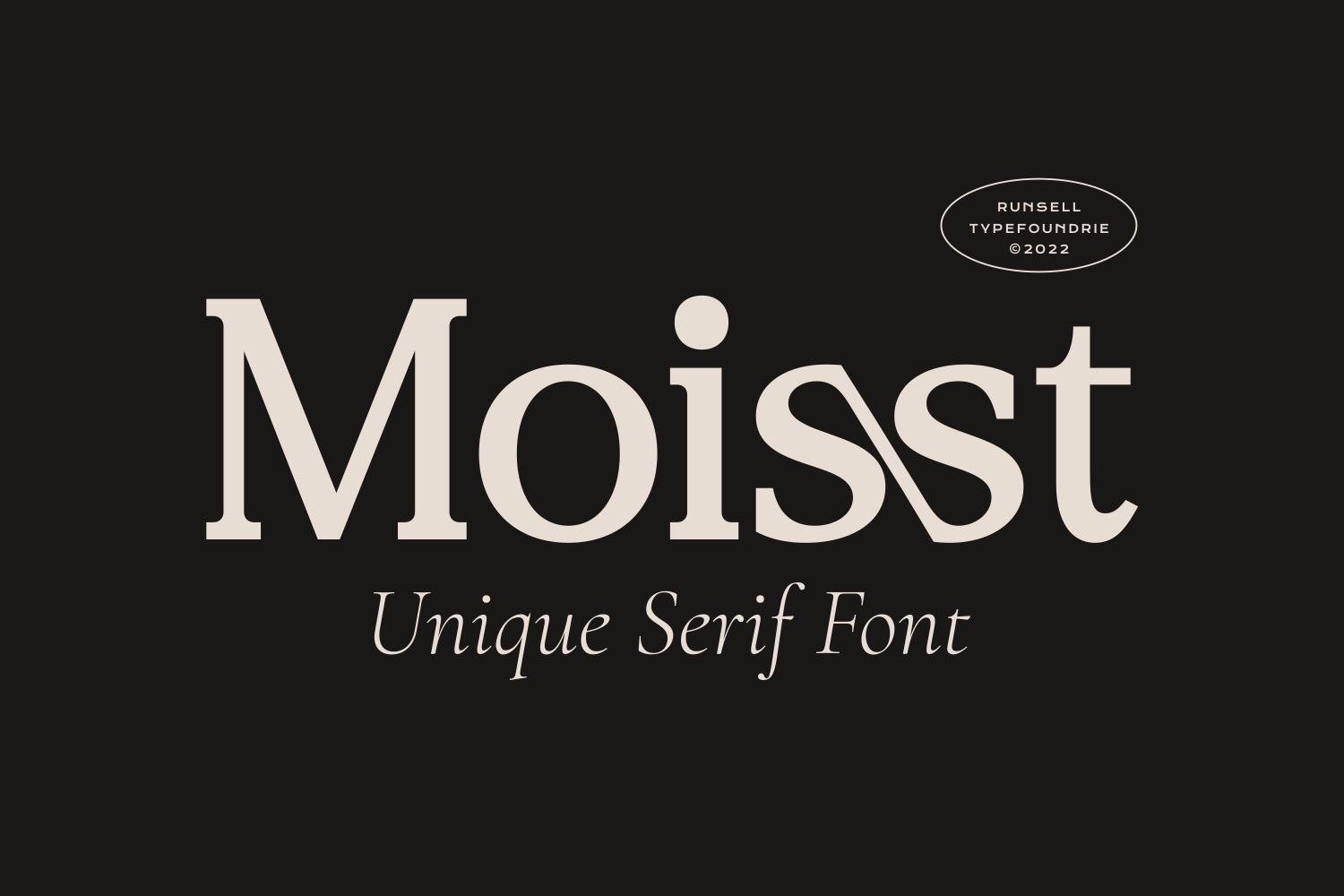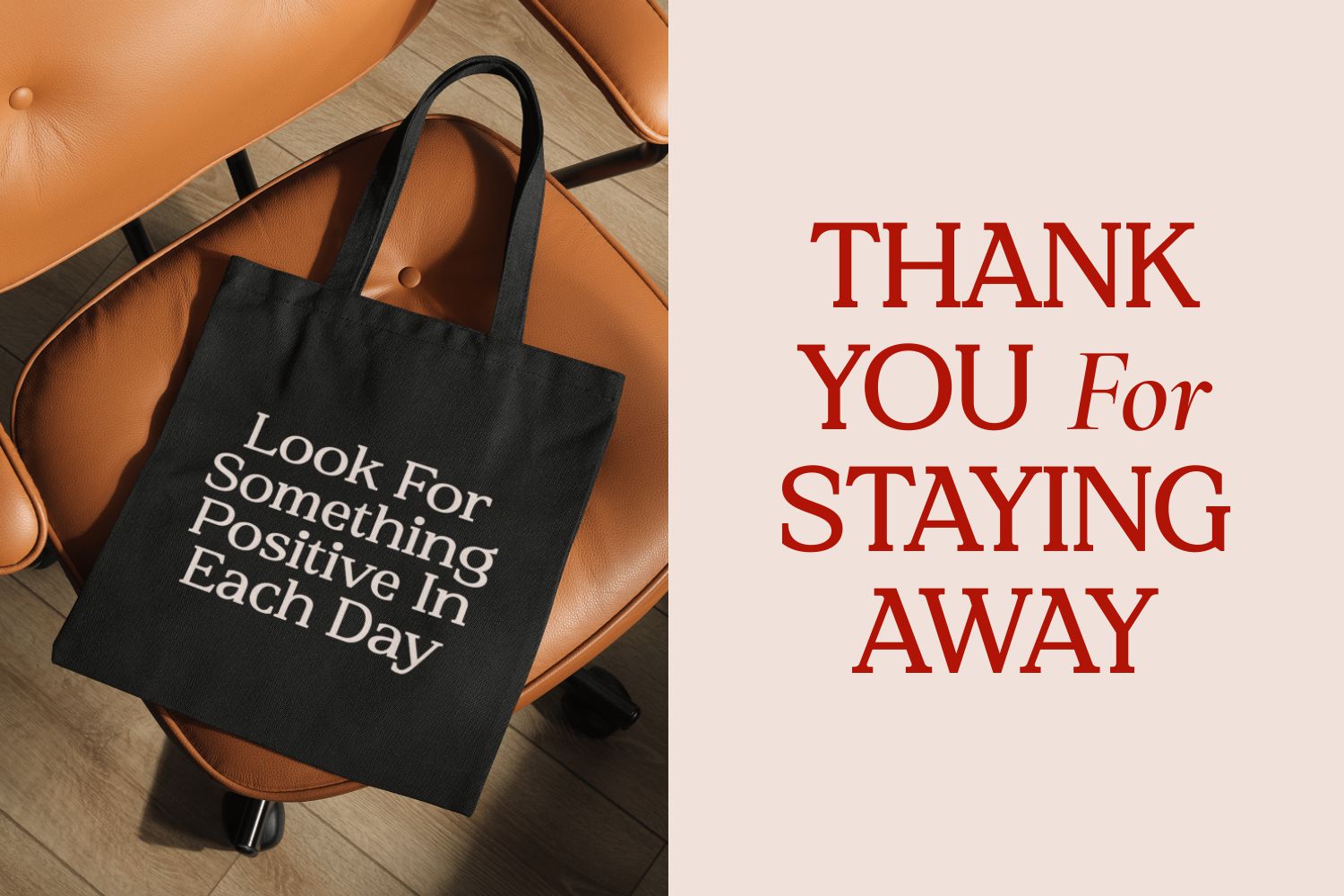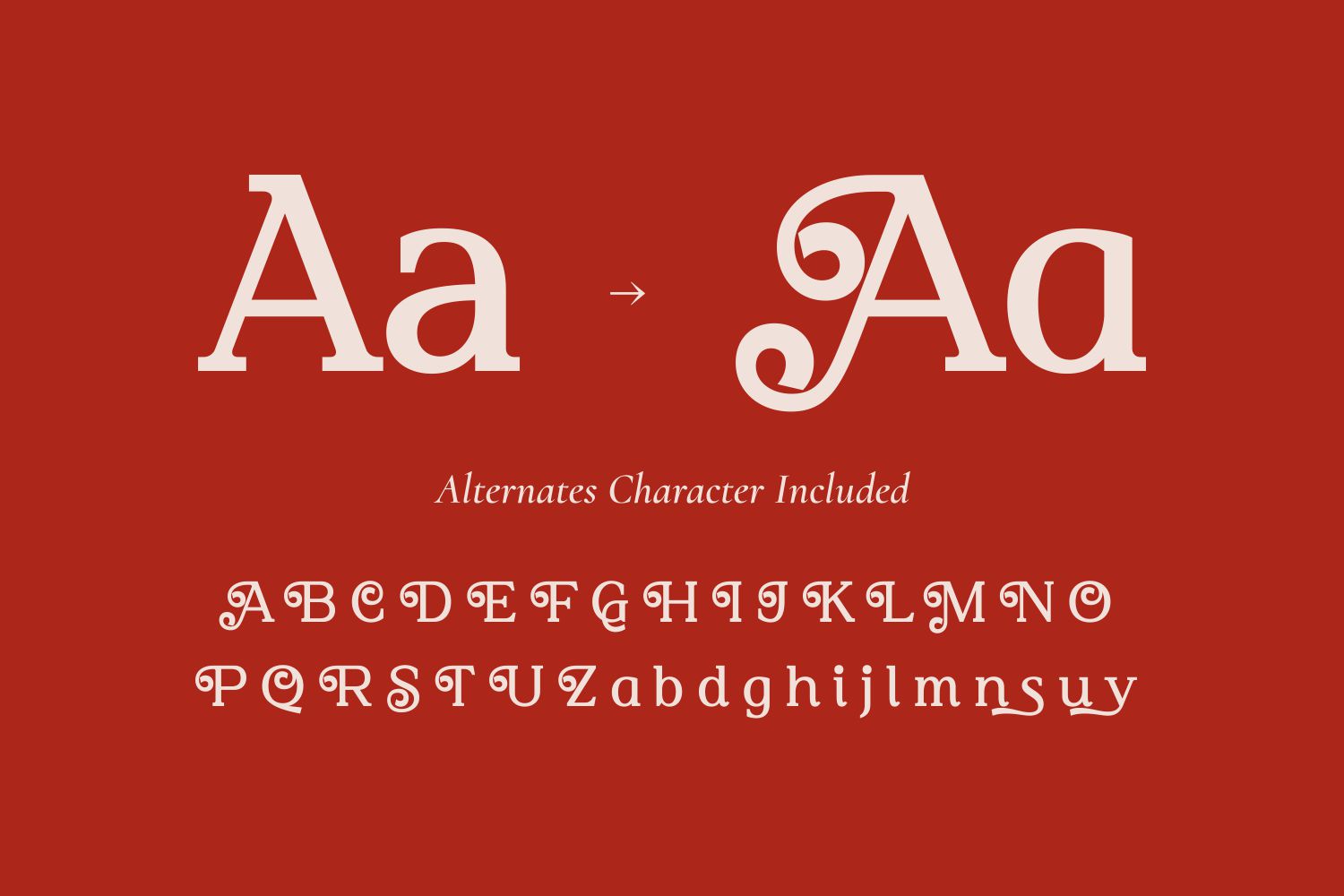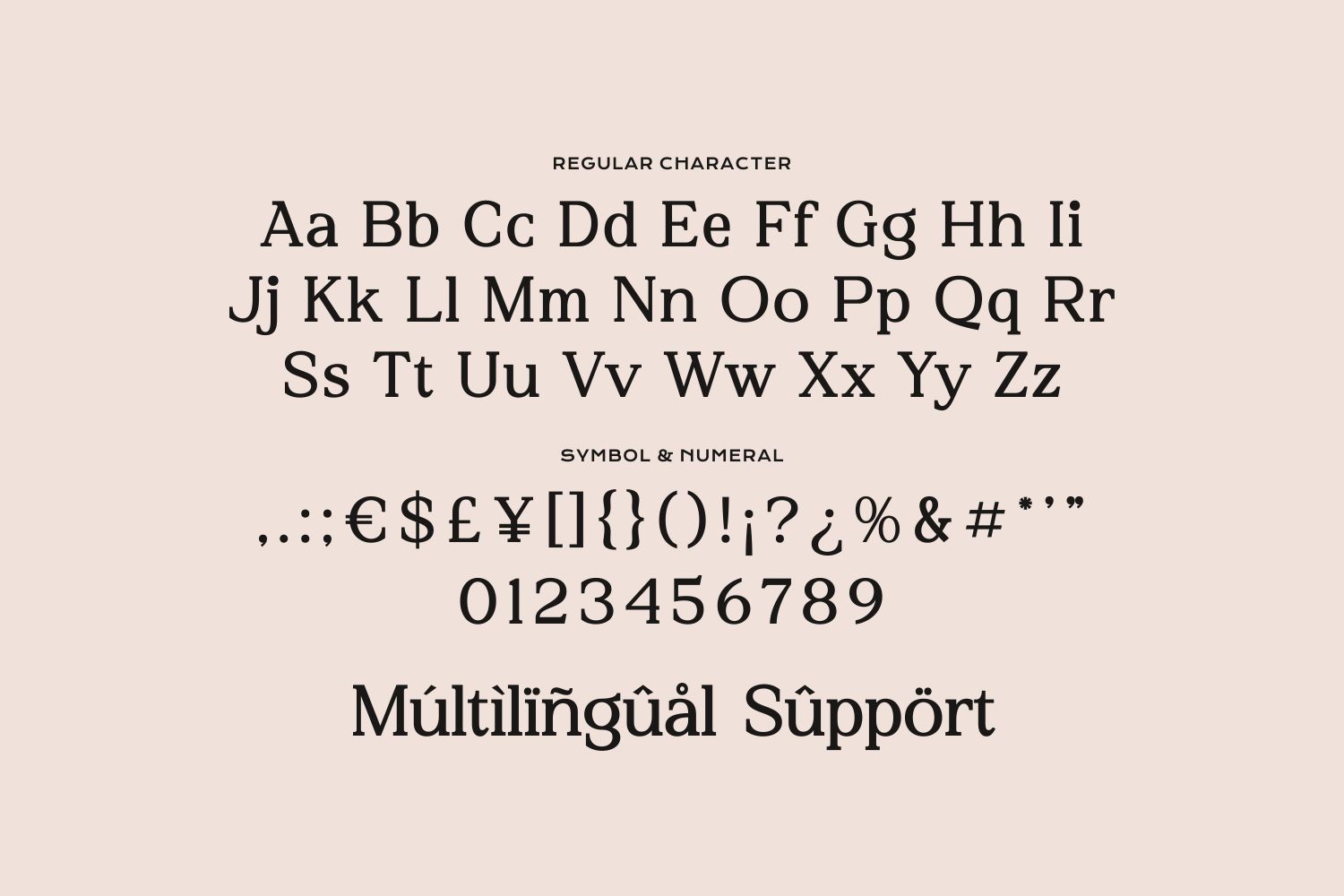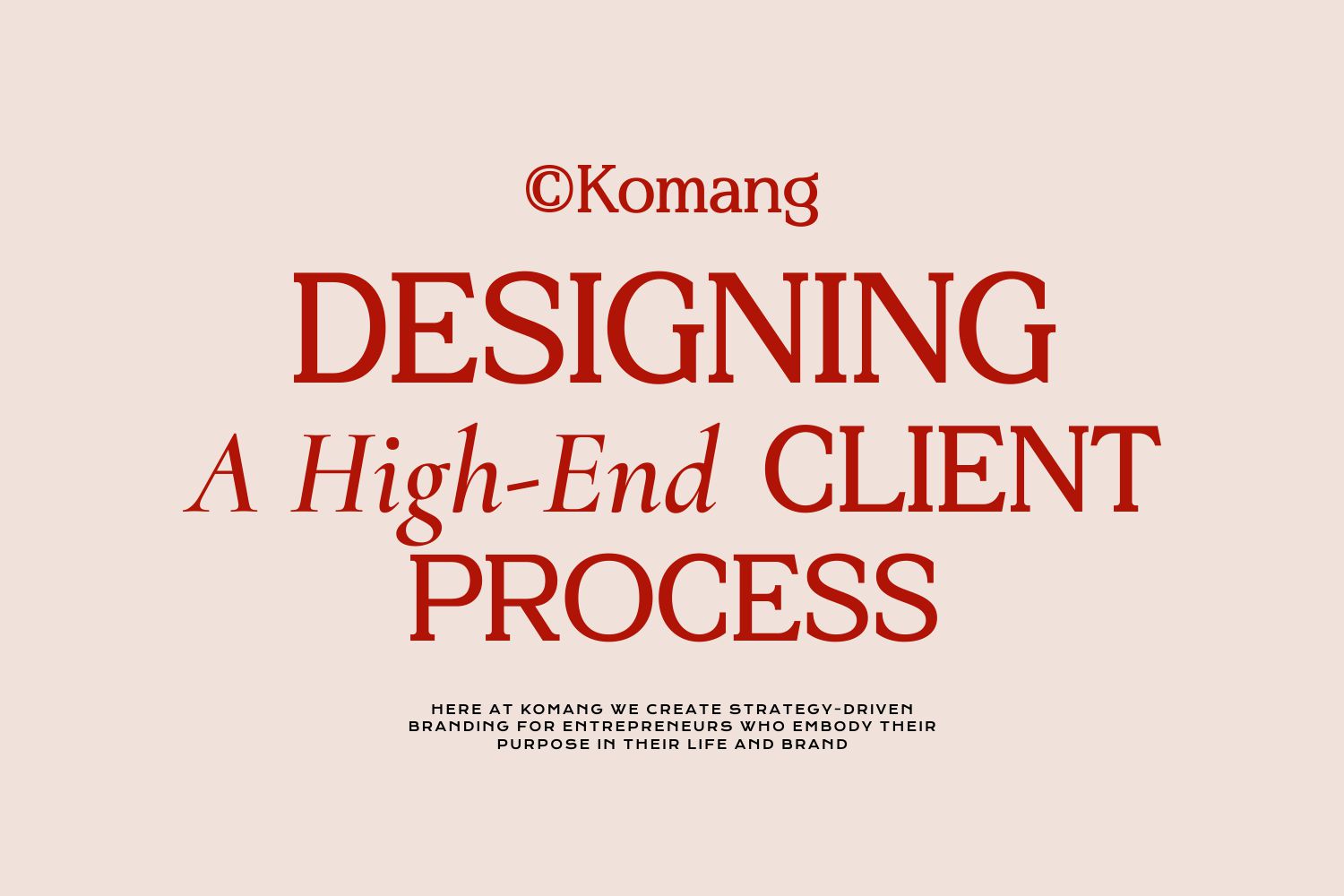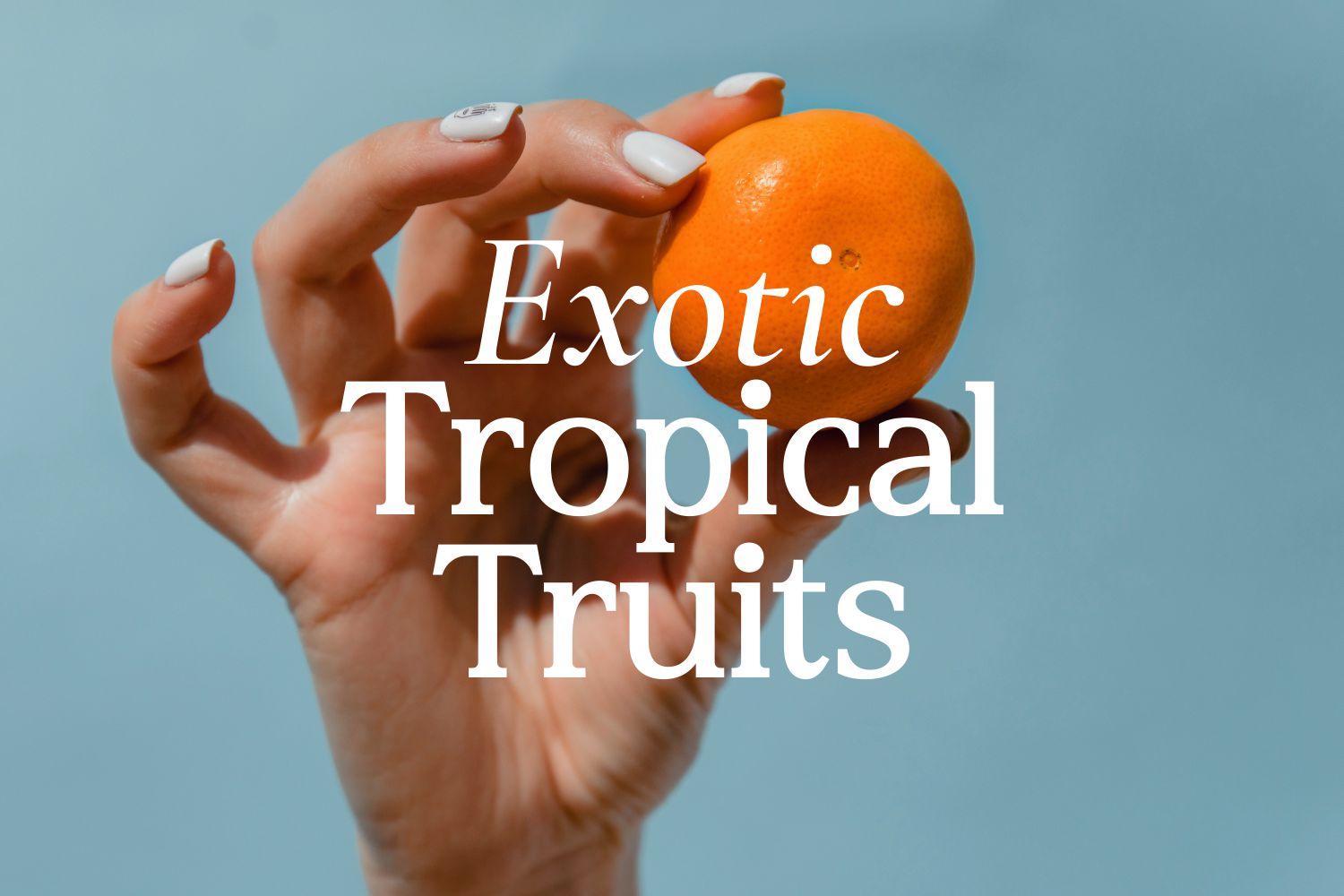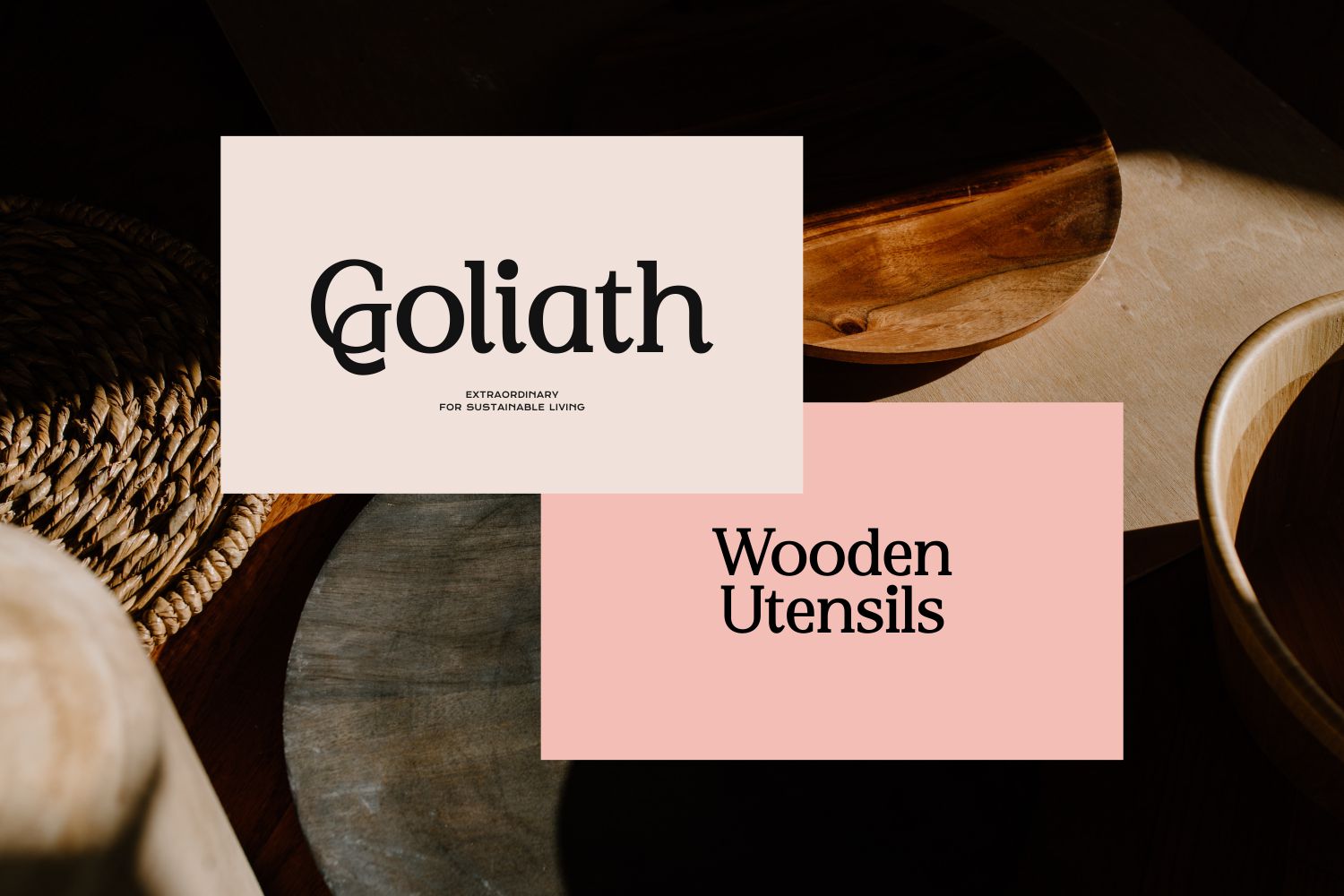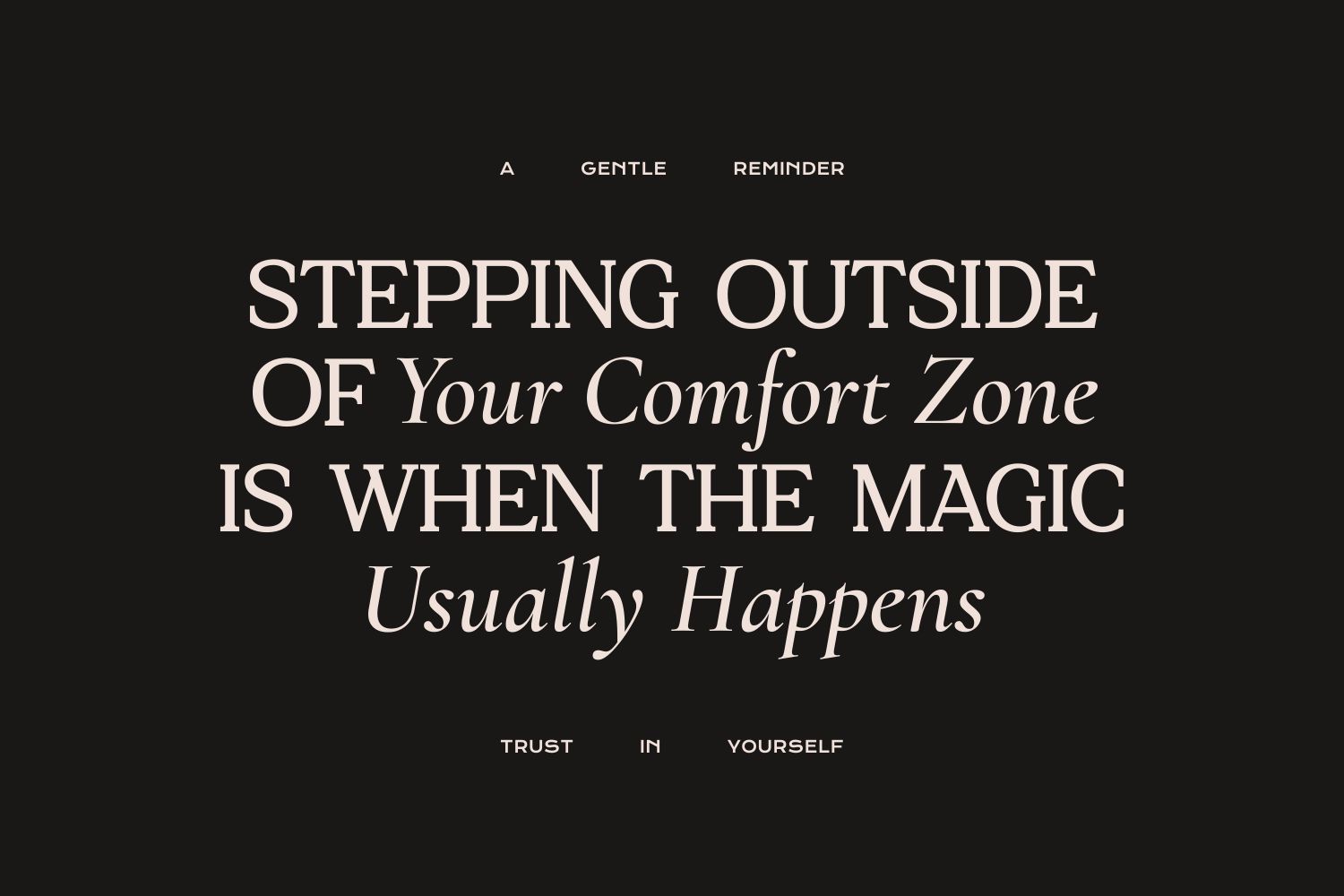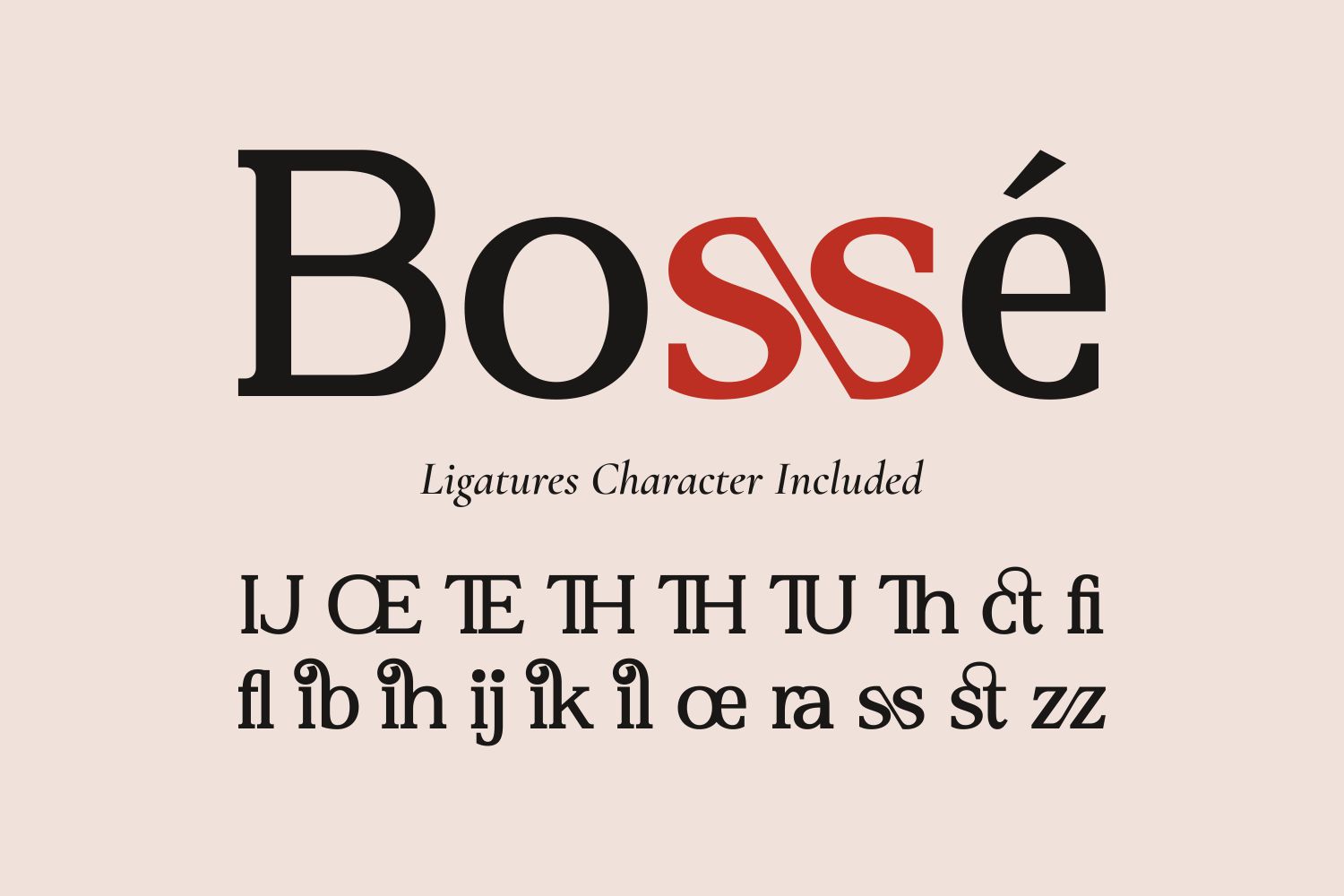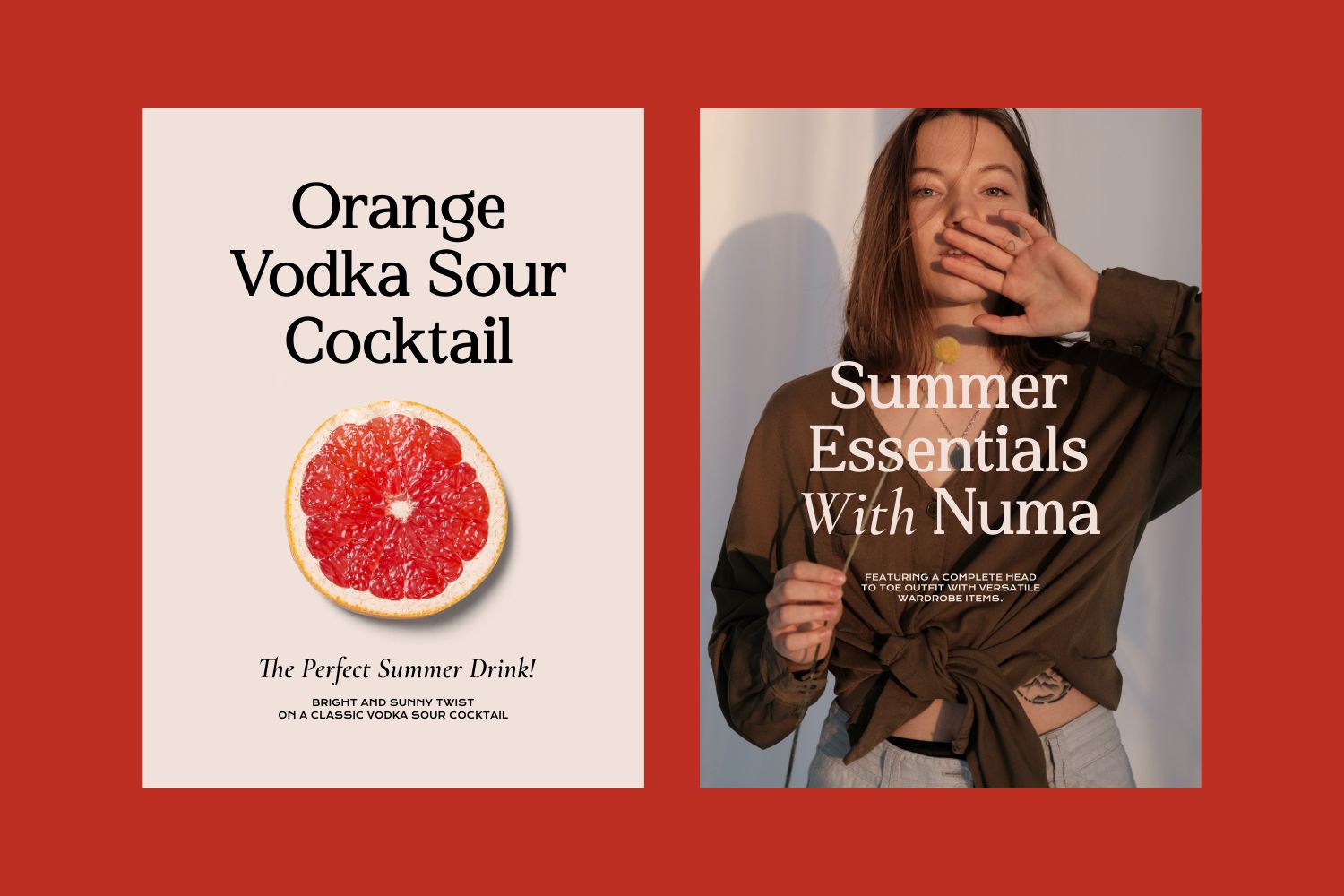
Moisst is a refined and unique serif font that blends elegance with personality. With its high contrast strokes, graceful curves, and distinctive ligatures, Moisst is designed to stand out in editorial layouts, branding systems, and premium packaging. Each letterform is thoughtfully crafted, offering both regular and alternate characters to bring sophistication and flexibility to your designs.
Perfect for luxury branding, fashion headlines, and inspiring quote layouts, Moisst pairs classic serif structure with modern quirks, giving it a contemporary yet timeless presence. Whether used in print or digital, Moisst adds a touch of charm and high-end professionalism to every visual.
Moisst